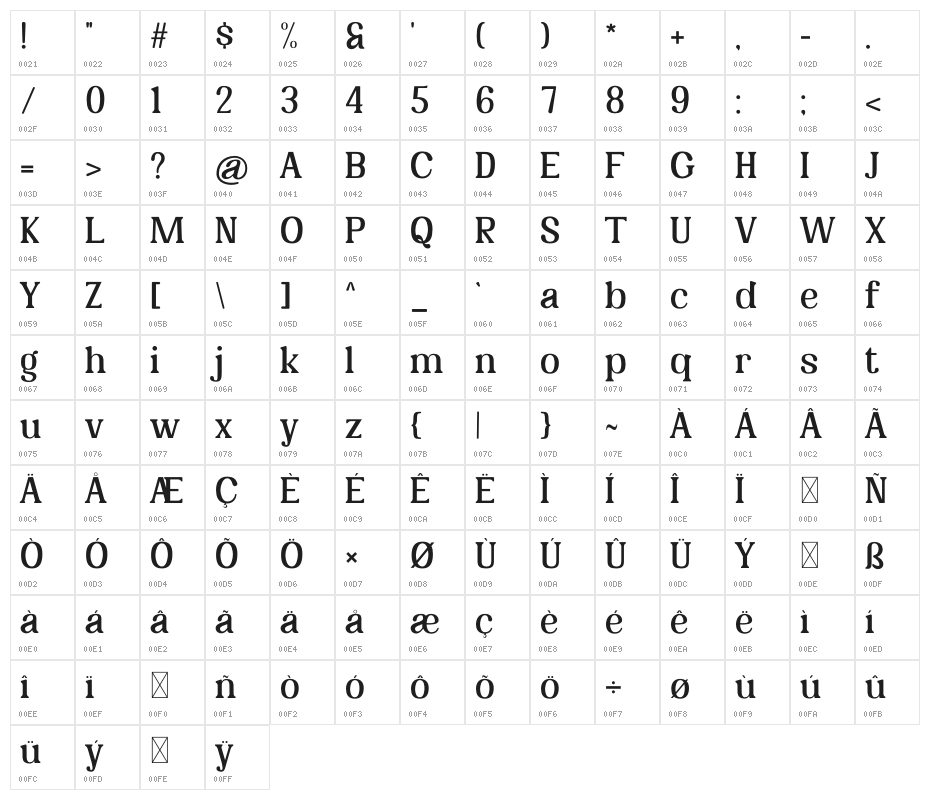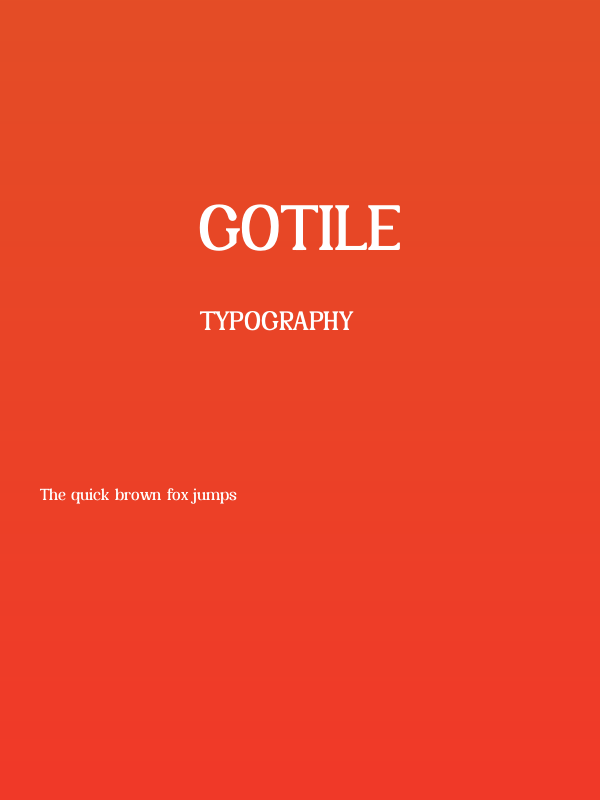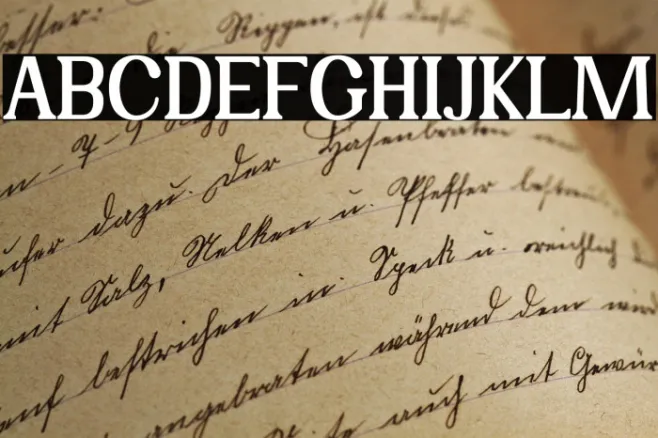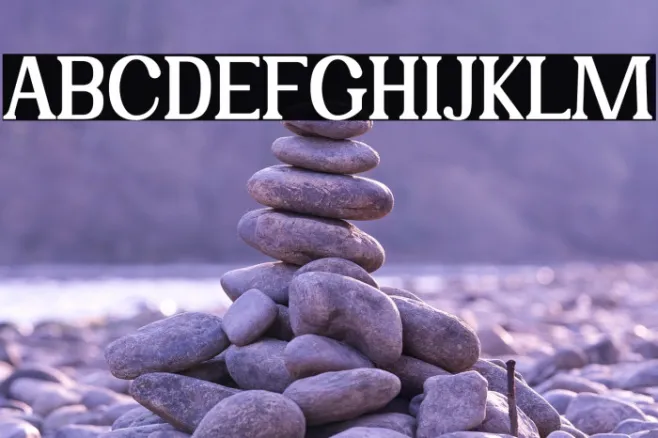
Gotile Font
Gotile Description
This font features a classic serif style with pronounced, elegant serifs that give it a timeless and sophisticated appearance. The uppercase letters are bold and commanding, while the lowercase letters maintain a consistent and harmonious flow. The numerals are well-proportioned, ensuring readability and balance. Special characters are distinct and maintain the overall aesthetic of the font. The design is suitable for both digital and print media, offering versatility across various applications. Its traditional yet refined look makes it ideal for projects that require a touch of elegance and formality.
| Proposed Projects | Ideal for book covers, formal invitations, branding materials, and editorial design. |